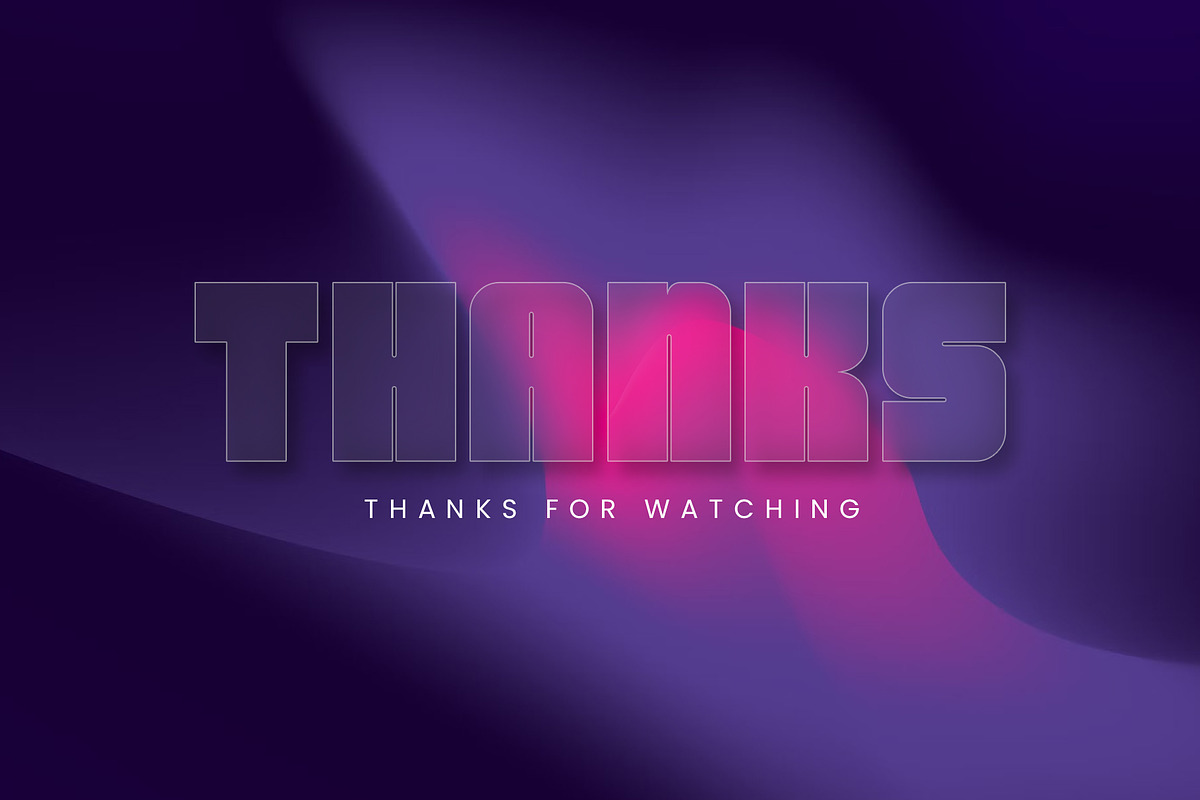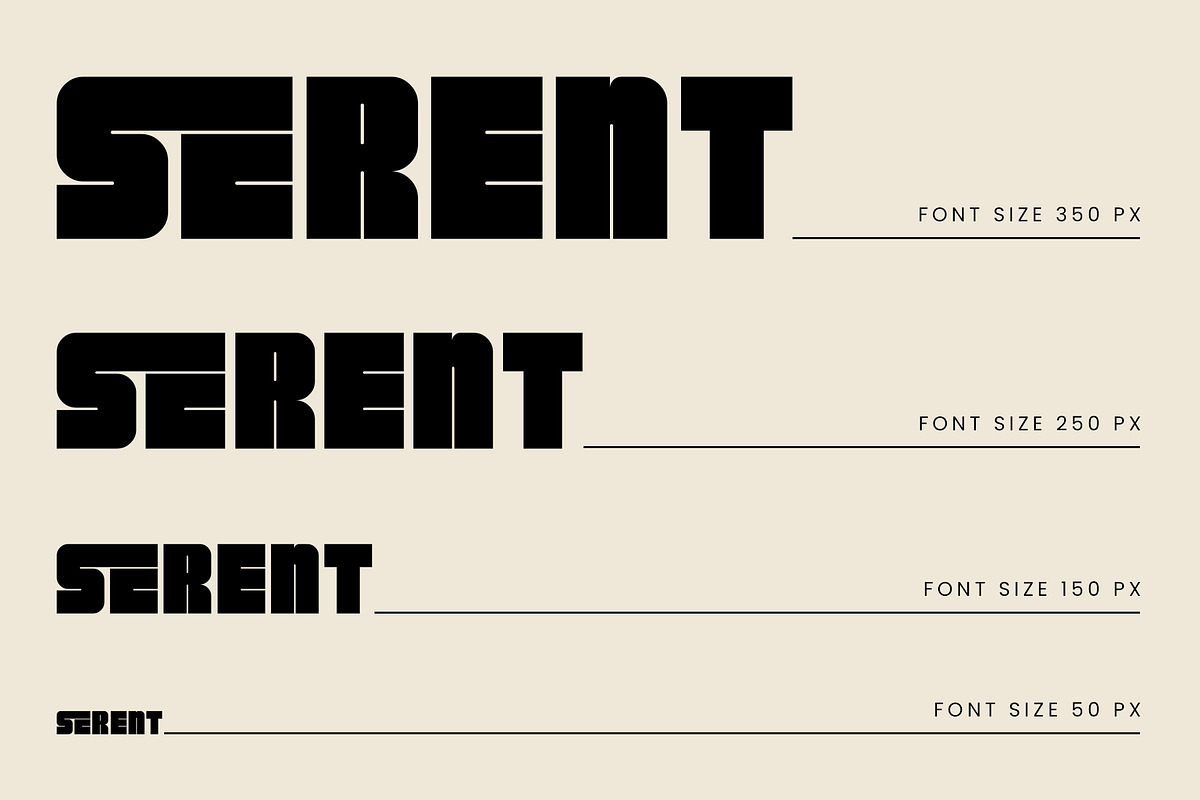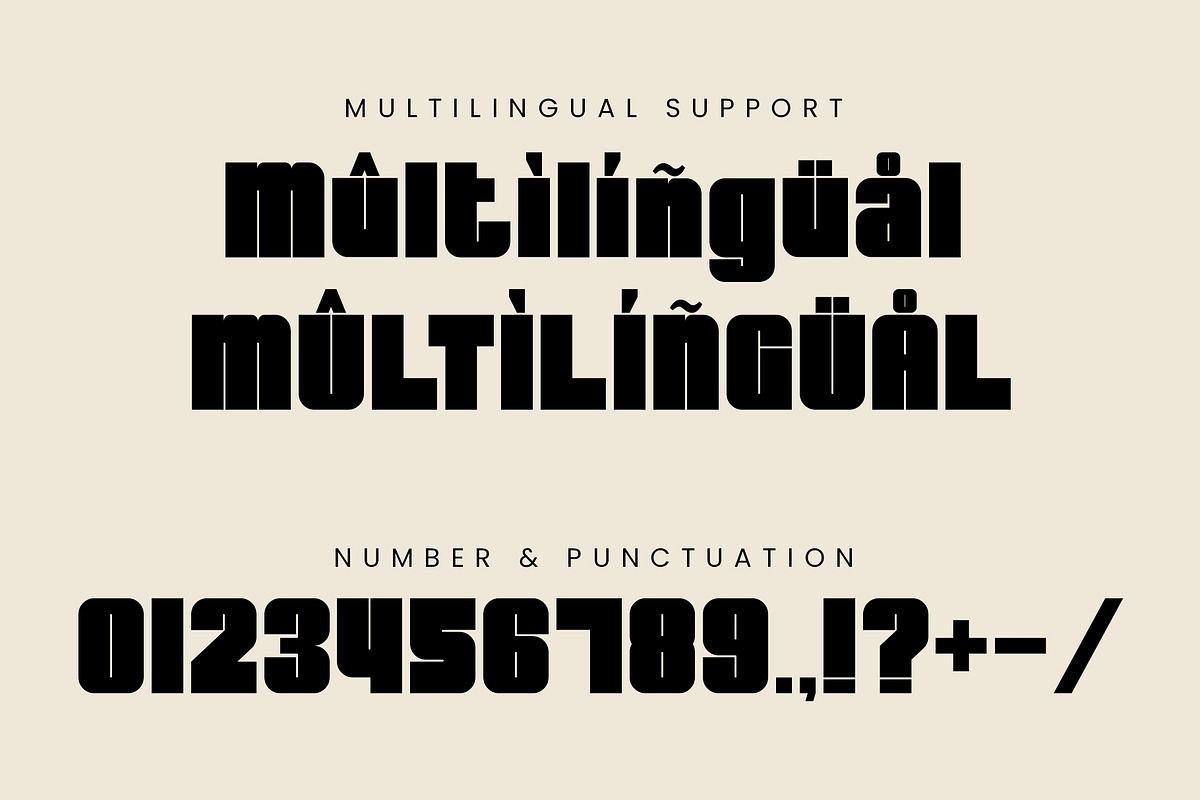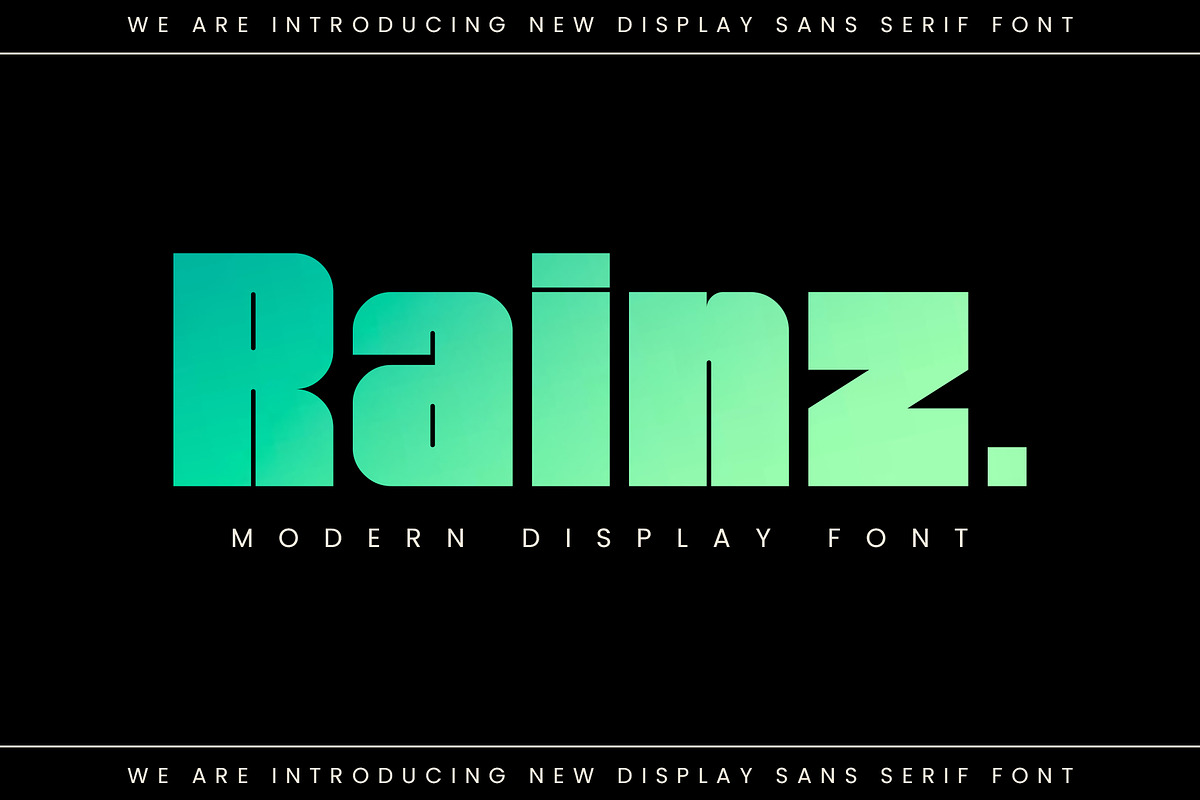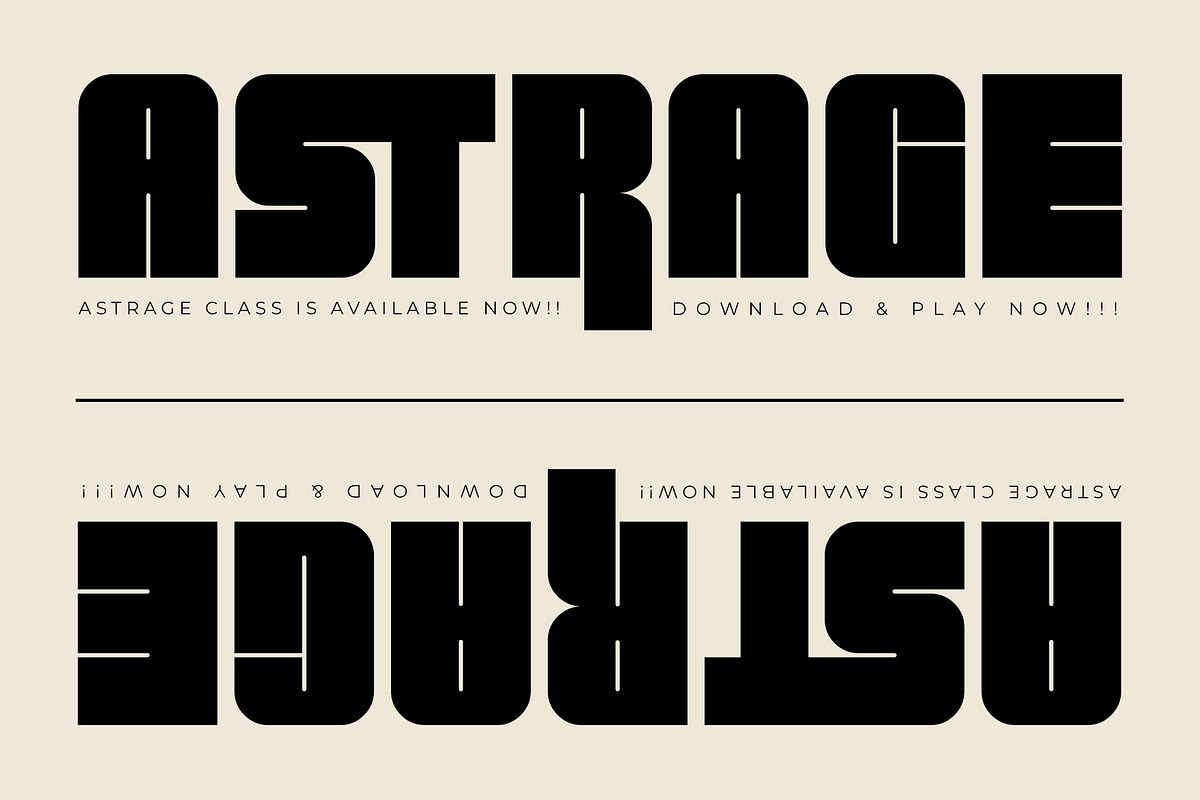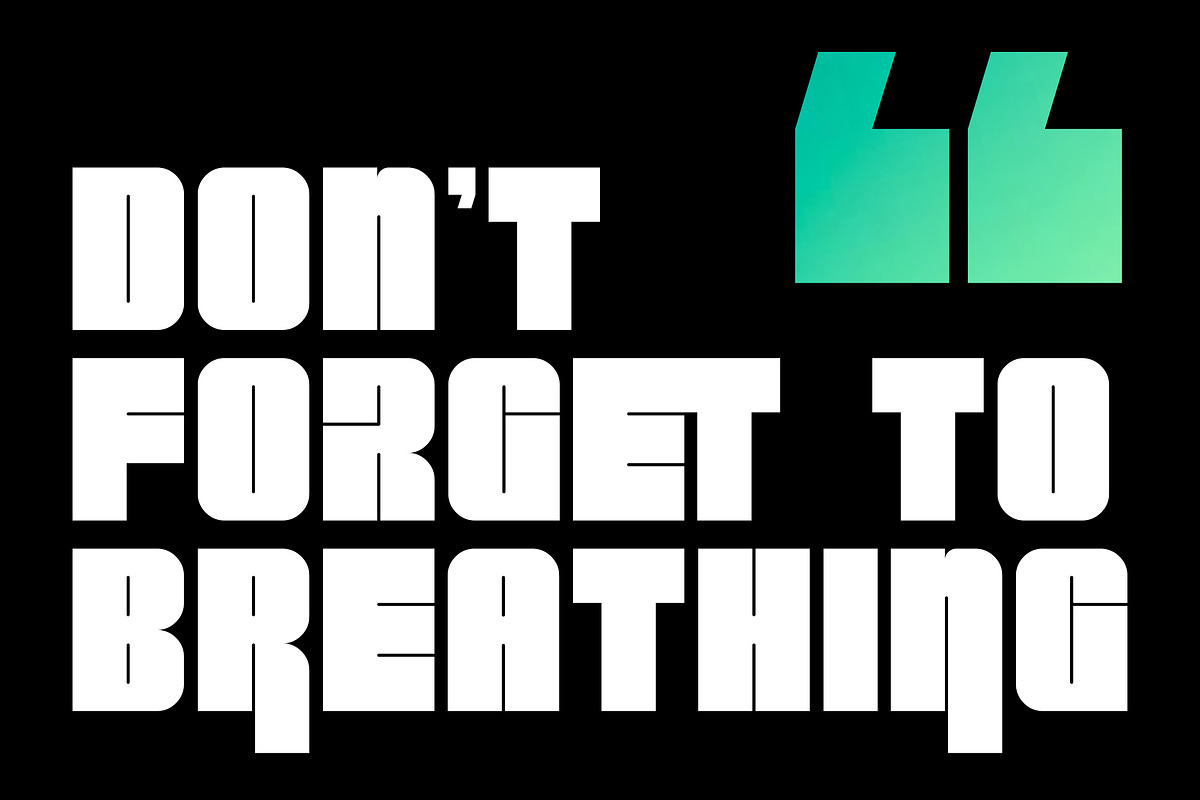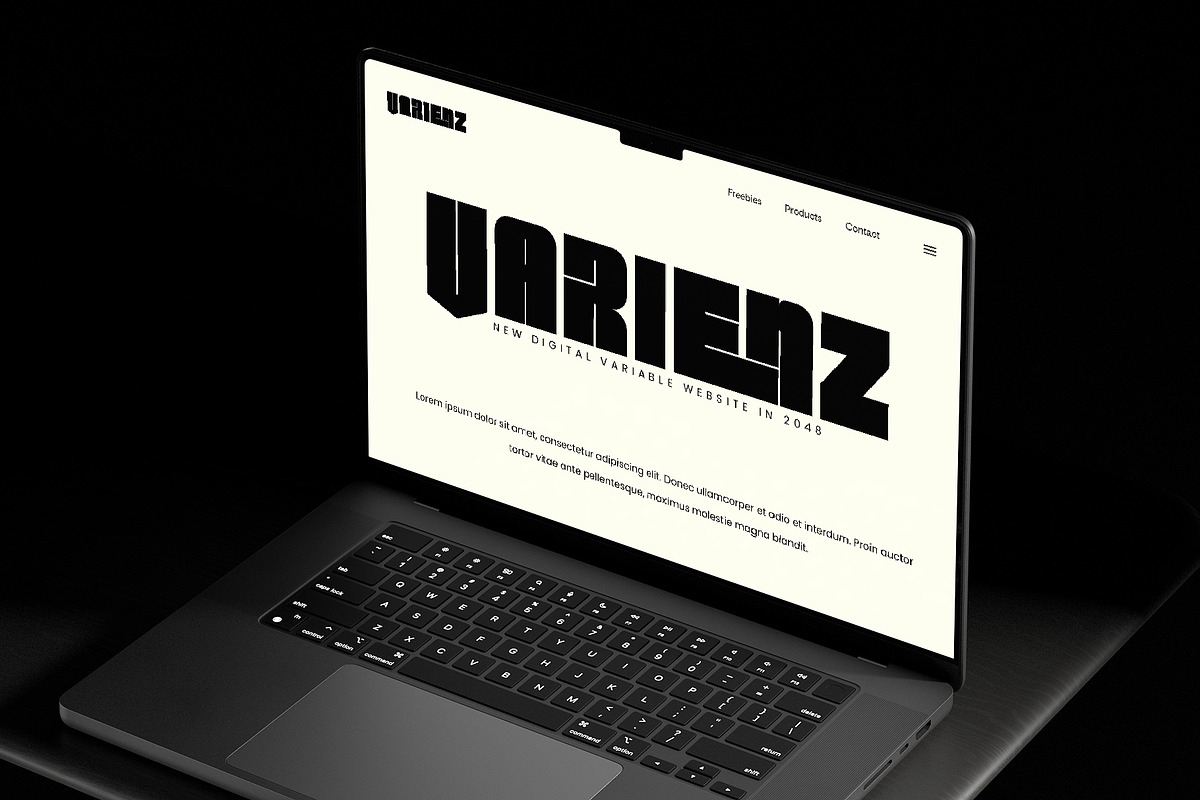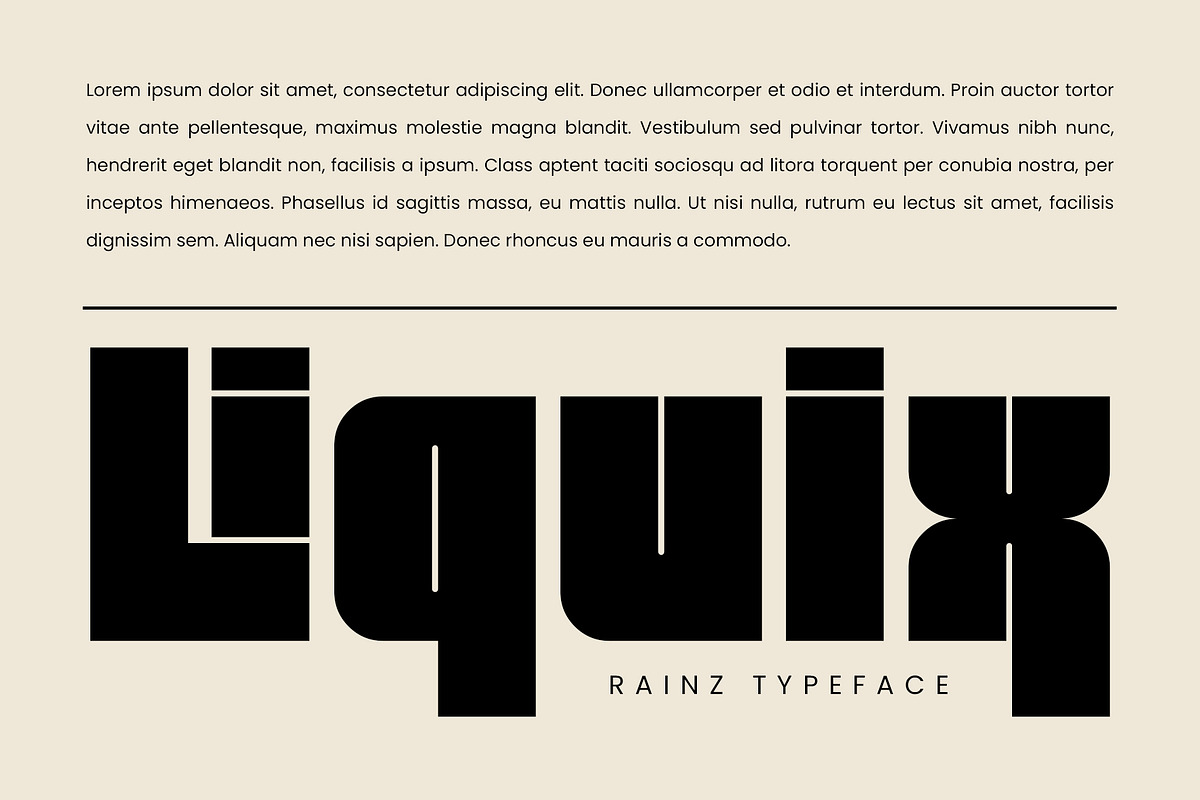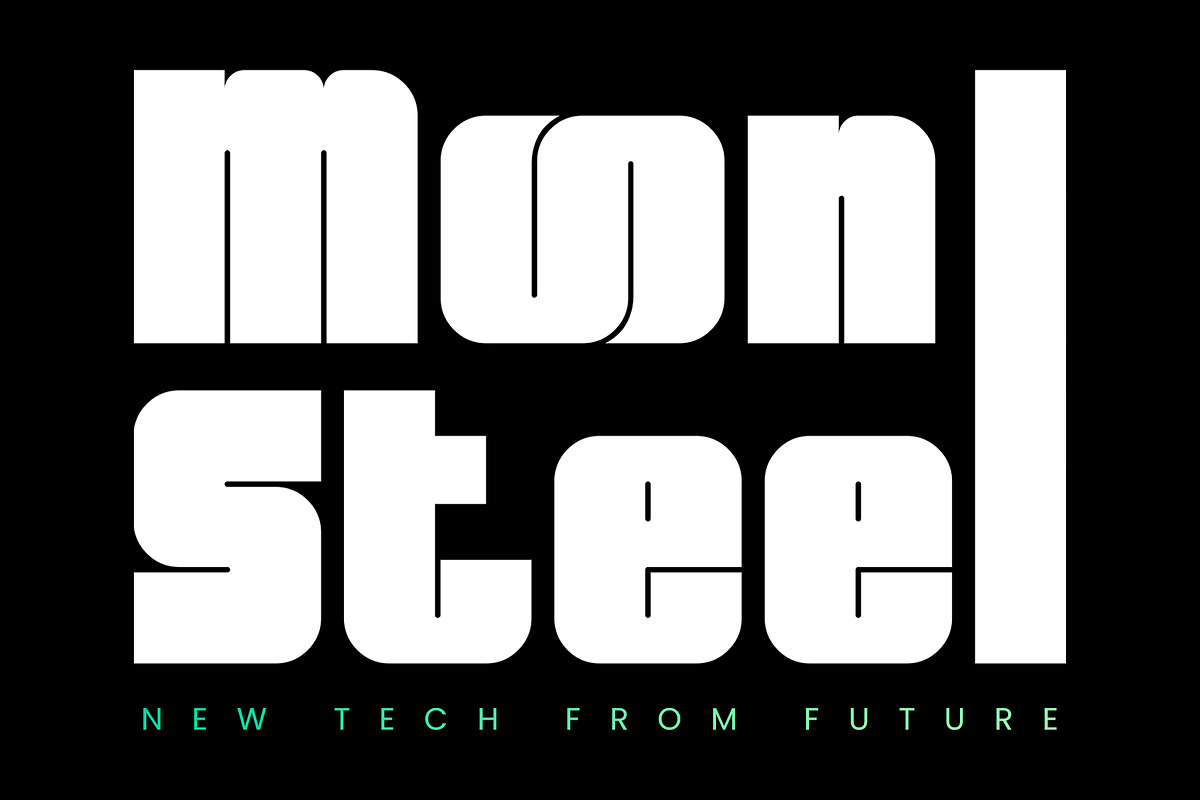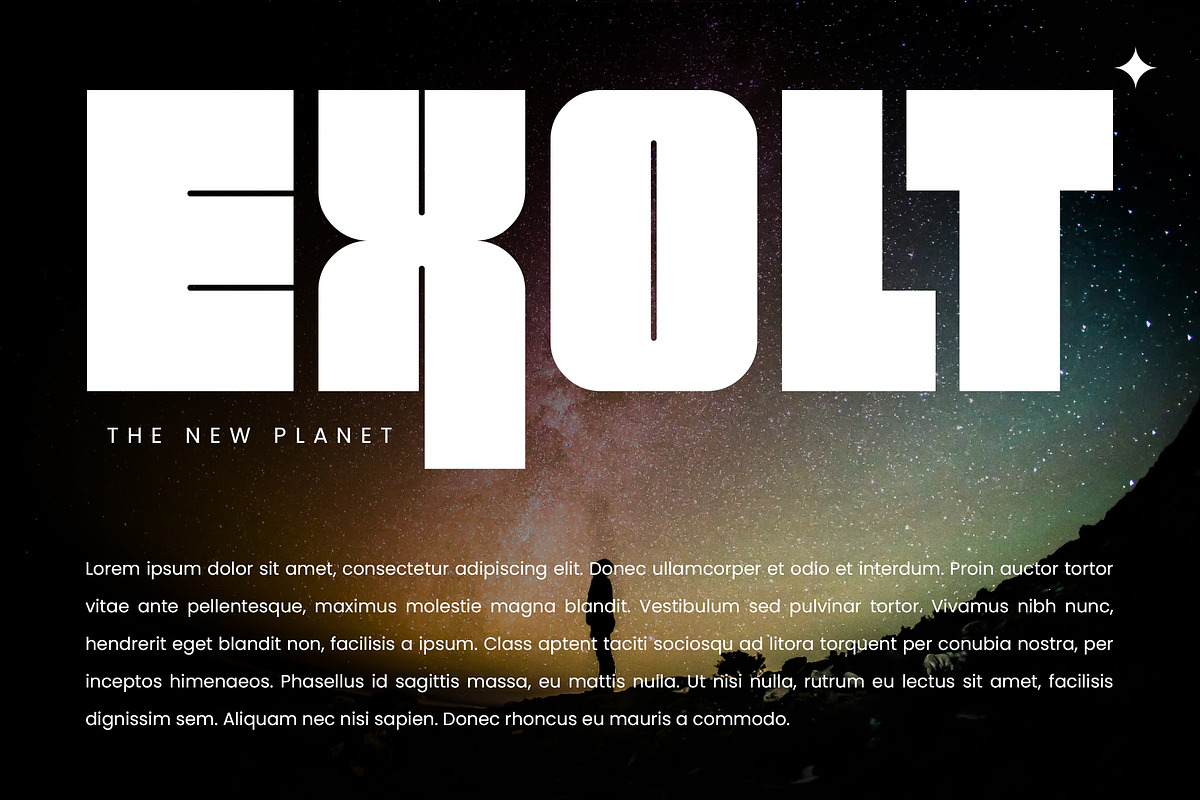
Rainz Sans Serif
Rainz Sans Serif is a modern and very striking typeface. Very suitable to be combined with invitation card designs, company logos, film titles, film names, business cards, book titles, brand names and various other designs. Rainz Sans Serif is a modern and very striking typeface. Its stylish alternation and binding make this font the perfect partner for any project.